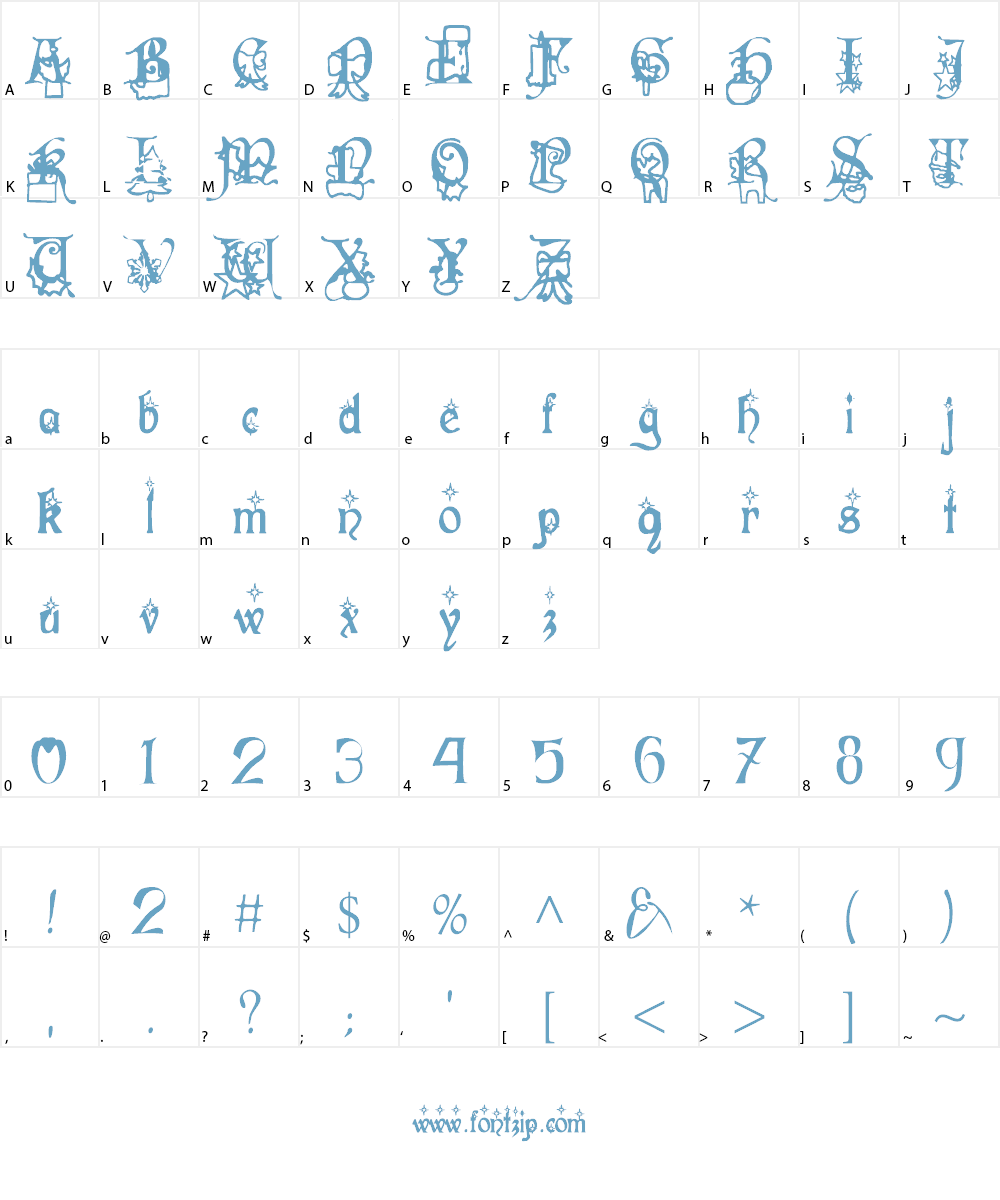
Each capital letter has a silhouette of a Christmas symbol on it. Each lower case letter has a star on it. Very Christmas-sy and great for Christmas cards and prints.